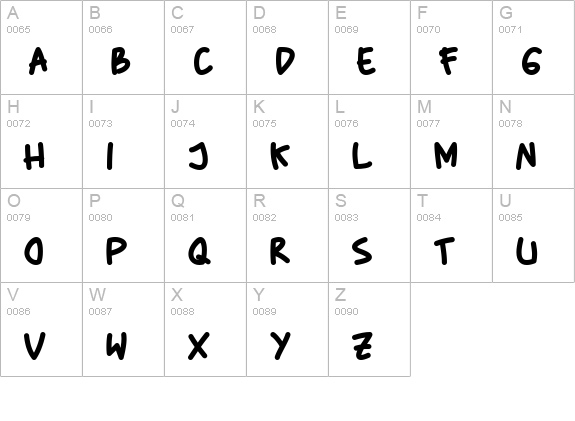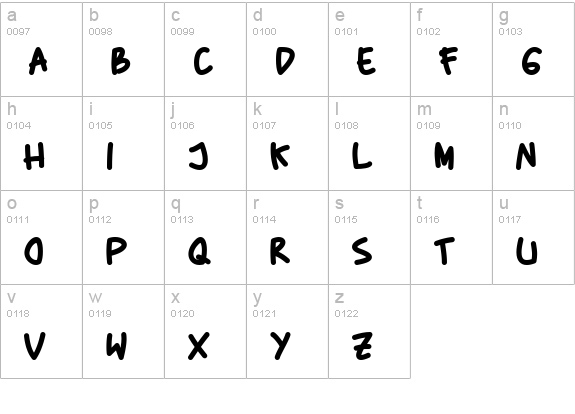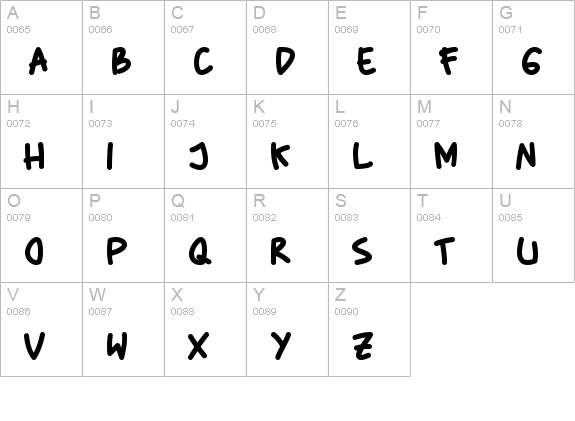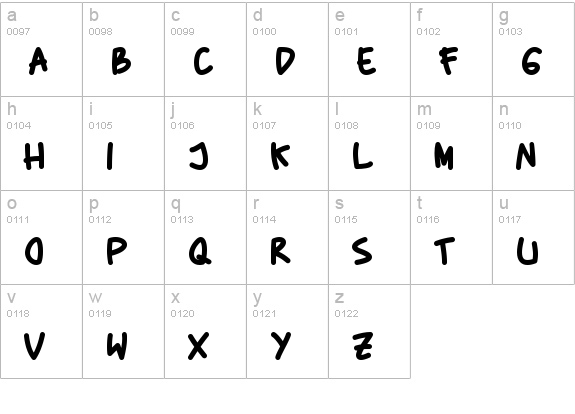
Baby Marker Font Details
Introducing Baby Marker, a delightful and charming handwritten font that exudes a playful and innocent vibe perfect for adding a touch of whimsy to your projects. With its cute and quirky appearance, Baby Marker is sure to bring a smile to your audience's face. This font captures the essence of childhood with its rounded edges and bubbly letterforms, making it an ideal choice for designs targeting babies, children, or anyone young at heart.